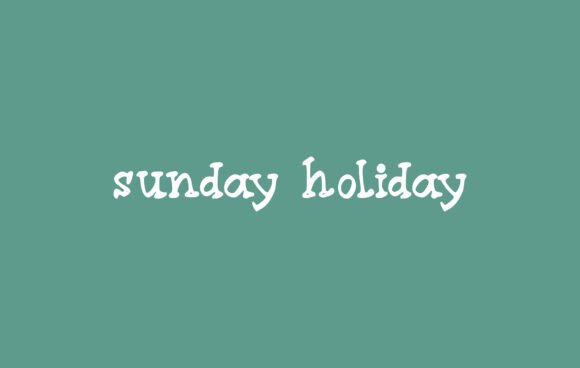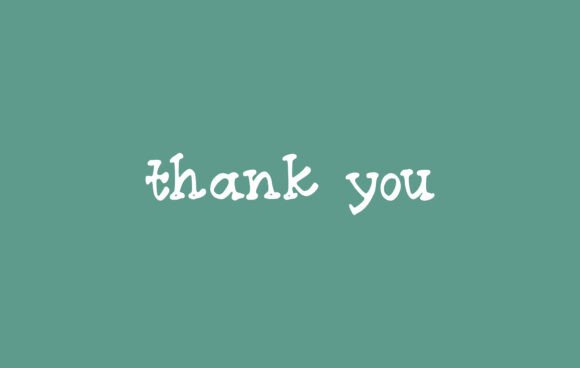
Introduction to Grayson Font
Grayson font is an authentic handwritten font with a romantic touch.
Key Features of Grayson Font
Why Choose Grayson Font?
Grayson Font offers exceptional quality and versatility, making it a valuable addition to your design toolkit. Whether you’re creating for personal projects or commercial use, Grayson Font delivers professional results.